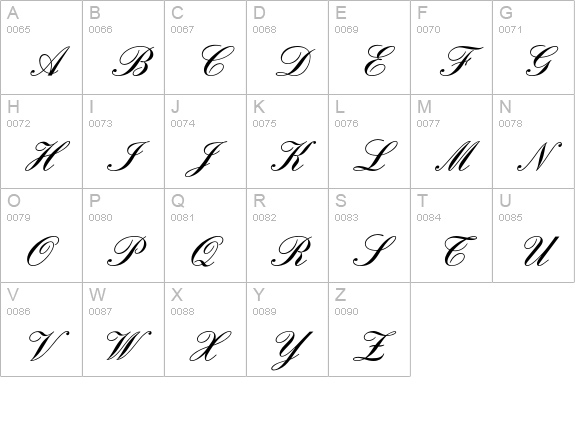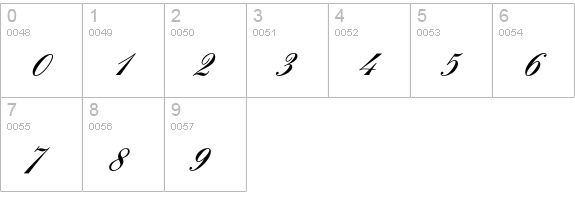
Englische Schreibschrift 2 VERSION ROMAIN Medium is a balanced, medium-weight variant in the Englische typeface family \xE2\x80\x94 well suited to sub-headlines, navigation, and balanced editorial work.
The Englische Schreibschrift 2 VERSION ROMAIN Medium font exudes elegance and sophistication with its classic calligraphic style. Its flowing and graceful letterforms make it a popular choice for projects that require a touch of refinement and tradition. This font is not only visually appealing but also versatile, making it suitable for a wide range of design applications including invitations, greeting cards, branding, and more. The medium weight strikes a perfect balance between readability and style, making it ideal for both headings and body text. What's even better is that this exquisite font is available for free download at FontsMarket.com. So you can easily add a touch of timeless beauty to your projects without any cost. Don't miss out on this opportunity to enhance your designs with the Englische Schreibschrift 2 VERSION ROMAIN Medium font today!